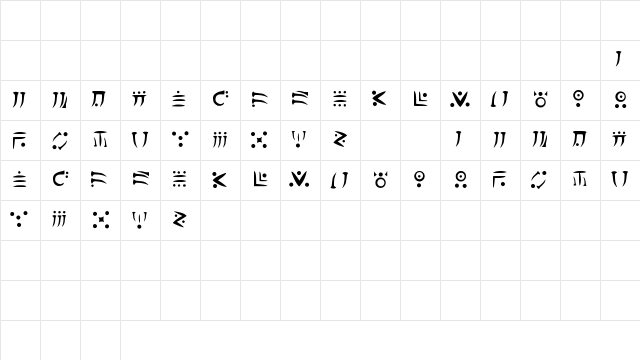
Dragomooriya Medium
| Foundry | Sapphire Games Ltd. |
| Designer | Falco276 |
Design Context for Dragomooriya Typeface
Dragomooriya is a composed and adaptable typeface that performs quietly and consistently across a wide range of design contexts.